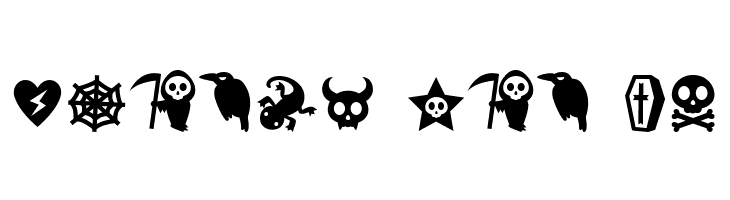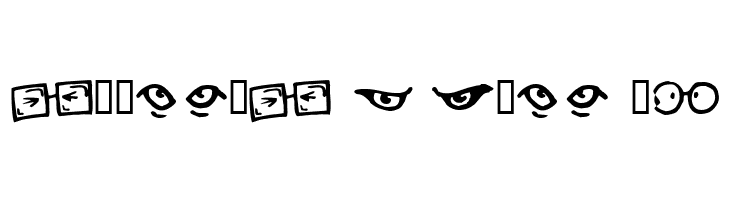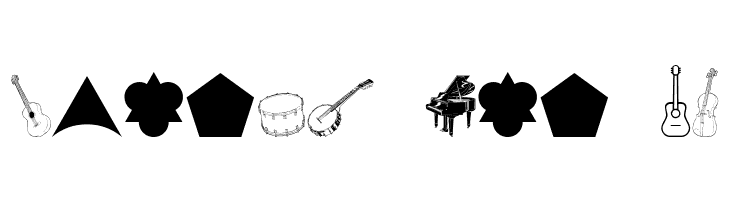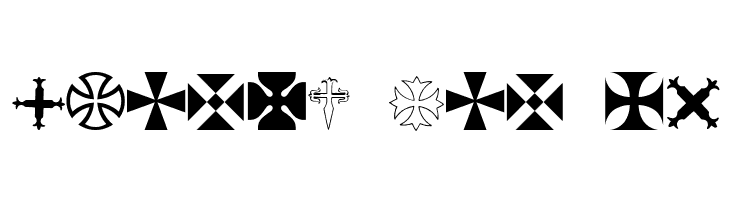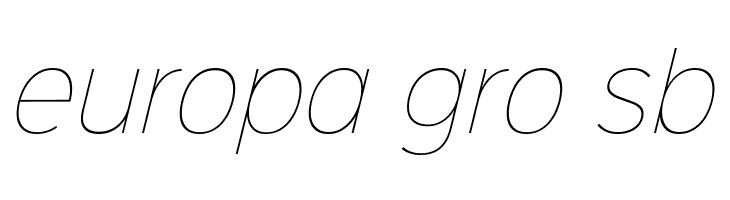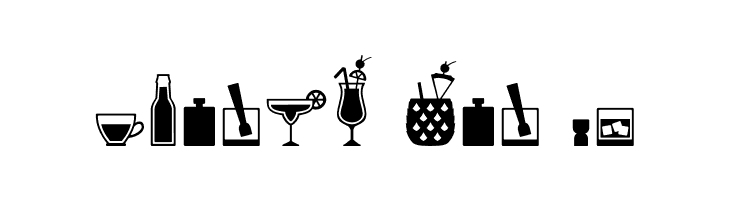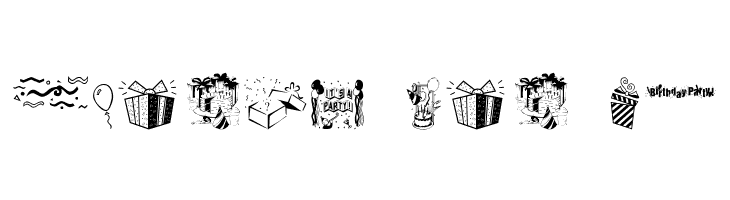
( IRO Specialty Chemicals USA, LLC - www.irowater.com )
A versatile collection of brand icons with a clean and modern aesthetic.
( Intellecta Design - new.myfonts.com/search/intellecta/fonts/?sort=sales?refby=paulow )
A whimsical collection of musical, geometric, and nature-inspired dingbats.
( Intellecta Design - new.myfonts.com/search/intellecta/fonts/?sort=sales?refby=paulow )
A decorative symbol font with diverse cross and religious motifs.
( K-Type - www.k-type.com )
A thin, italic sans-serif font with a modern and elegant style.
( Lauren Ashpole - www.laurenashpole.com/ )
A bold, modern collection of drink-themed icons in black silhouette style.
( LeChefRene - members.aol.com/lcrfonts/ )
A festive dingbat font with party-themed icons and celebratory text.
( N+ - www.n-plus.jp/index.html )
A playful and spooky collection of Halloween-themed icons in bold silhouettes.
( Nght's Place - www.crosswinds.net/~nghtmvs/font/fonts1.html )
A bold, abstract font with artistic and creative elements in each character.
( Ouripedes Gallene )
A bold, decorative icon set with diverse abstract and pictorial symbols.
( Perry Mason )
A decorative font made up of diverse cartoon eye illustrations.